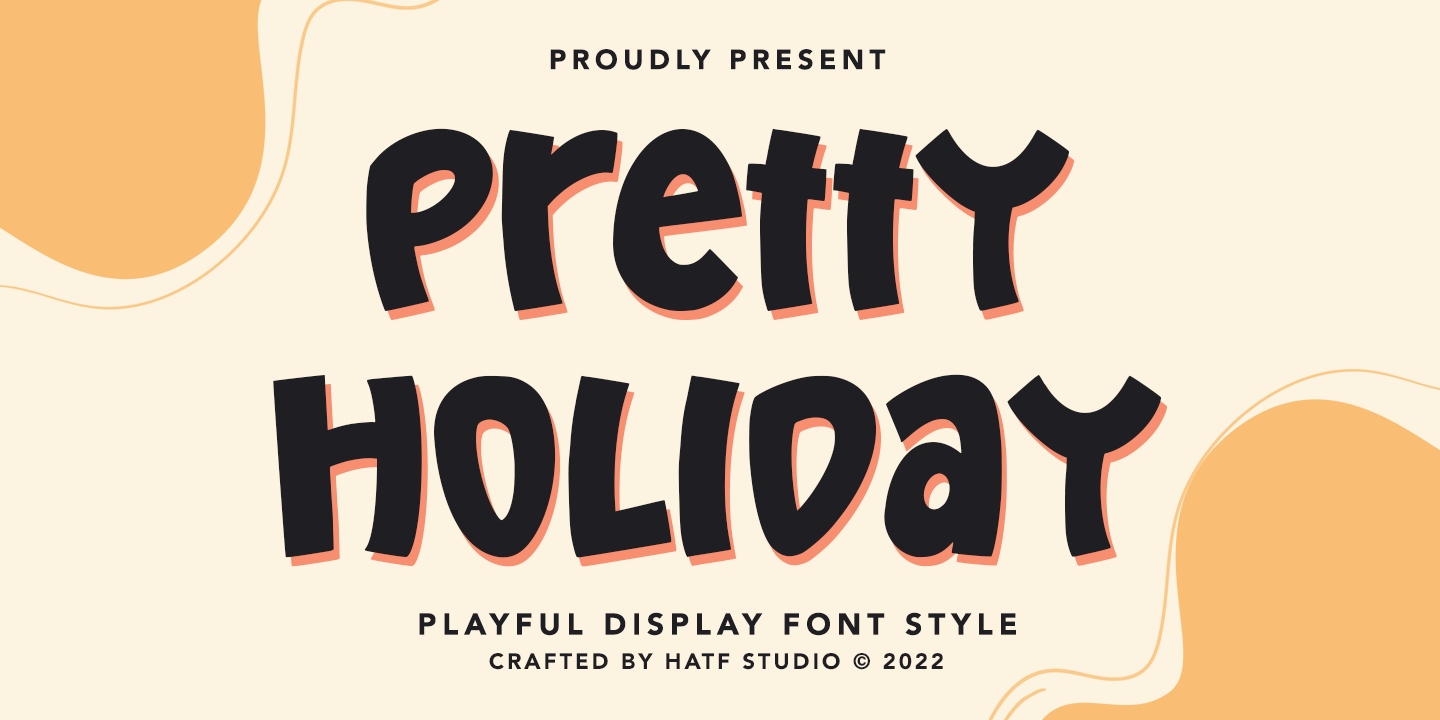
Pretty Holiday Font is perfect for holiday celebration materials, festive greeting cards, seasonal party invitations, Christmas decorations, vacation branding, holiday marketing campaigns, festive packaging designs, and cheerful holiday typography.
What makes Pretty Holiday Font exciting is its festive cheerful character that embodies holiday joy and seasonal celebration through decorative letterforms and festive appeal. This delightful typeface features holiday construction, seasonal details, and celebratory personality that captures the essence of holiday magic and festive gatherings, making it ideal for projects seeking to communicate holiday spirit, seasonal joy, and festive celebration with authentic holiday appeal and seasonal sophistication.
The Pretty Holiday Font family includes Light, Regular, and Bold weights, each maintaining the characteristic holiday cheer and festive appeal that define this distinctive typeface's celebratory personality and seasonal sophistication.
Pretty Holiday Font Free Download provides access to a typeface that perfectly captures the essence of holiday celebration and seasonal festivities. This cheerful font brings authentic festive aesthetics to contemporary projects, making it essential for holiday retailers, event planners, and seasonal brands targeting audiences who celebrate holidays and embrace seasonal traditions. The font's holiday construction and festive details ensure immediate recognition of celebration and joy while its distinctive character creates warm connections among individuals seeking holiday experiences and seasonal celebration. Whether designing holiday greeting materials, festive event campaigns, or seasonal brand communications, this font delivers the holiday authenticity and festive sophistication that celebration-loving audiences expect. Its holiday foundation and seasonal symbolism make it indispensable for projects celebrating holiday traditions, seasonal joy, and the magical spirit of festive gatherings, ensuring communications resonate with audiences who value the holiday warmth, seasonal celebration, and festive magic that define authentic holiday experiences and seasonal festivities across diverse holiday and celebration applications.